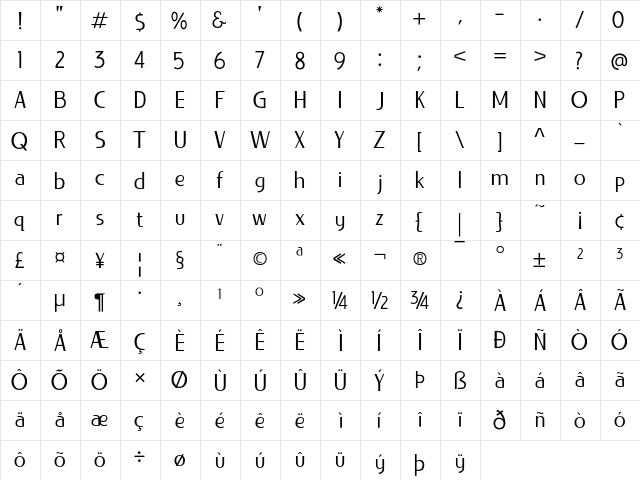
LIEUR Regular
| Designer | Andi Winarno-Inkstypia |
Design Context for LIEUR Typeface
LIEUR offers clean, dependable letterforms without strong stylistic allegiance, making it a practical choice for designers who need flexibility.